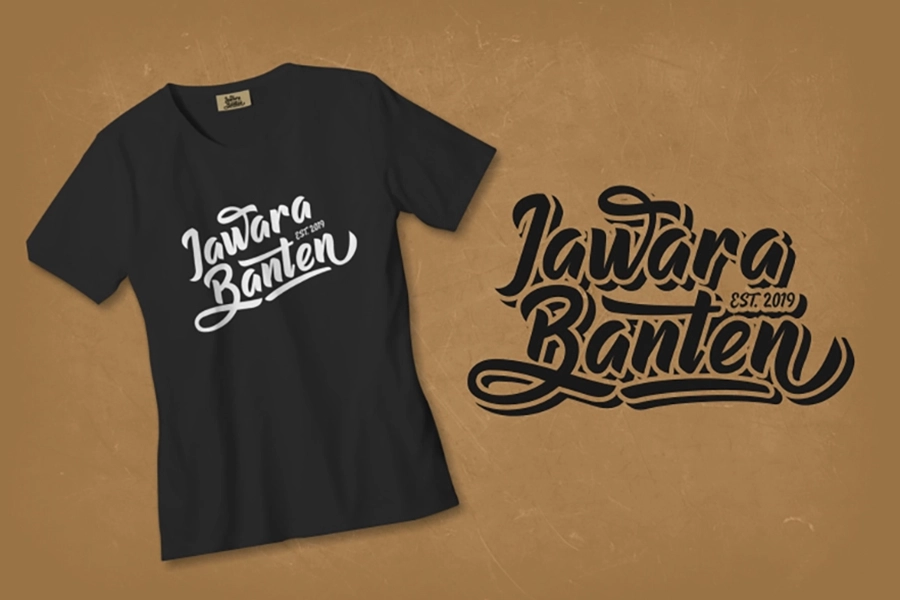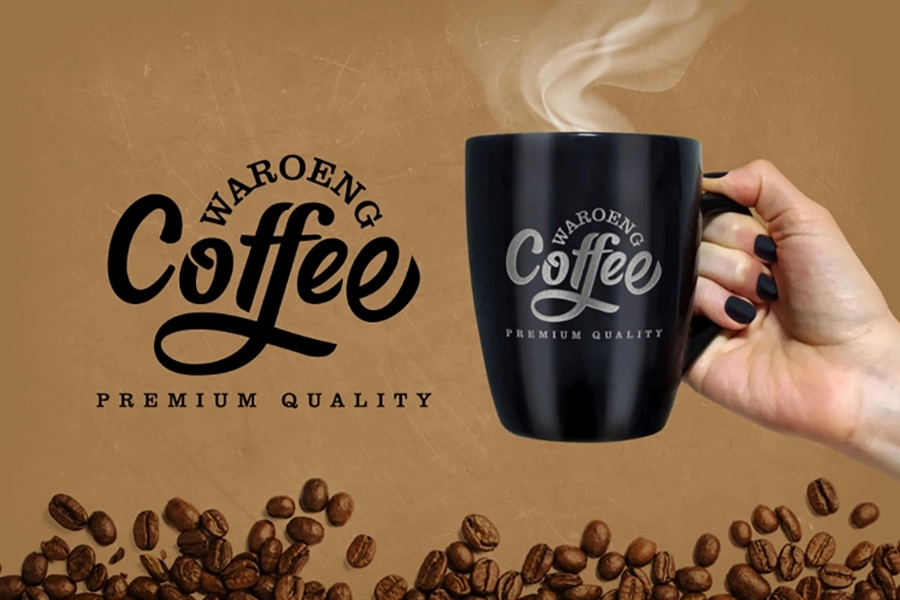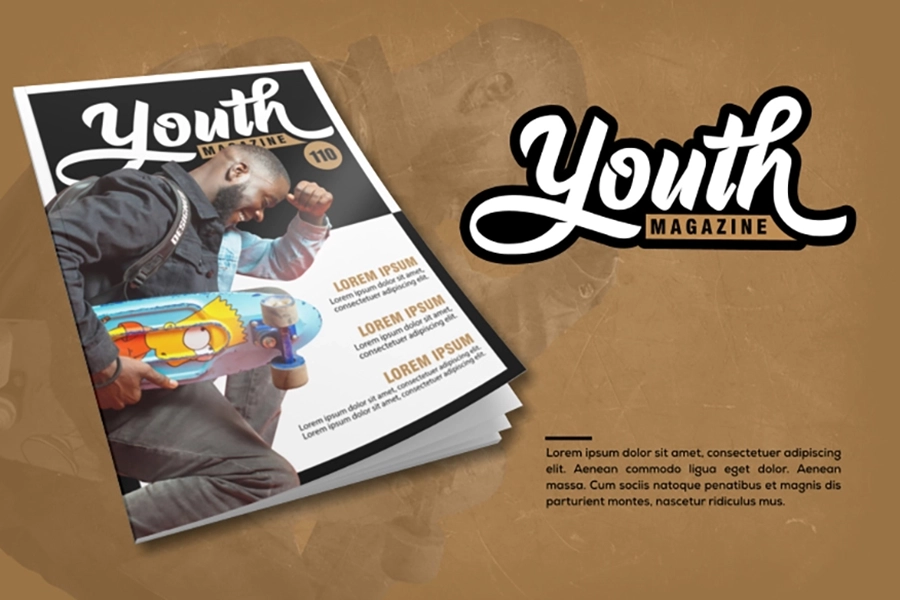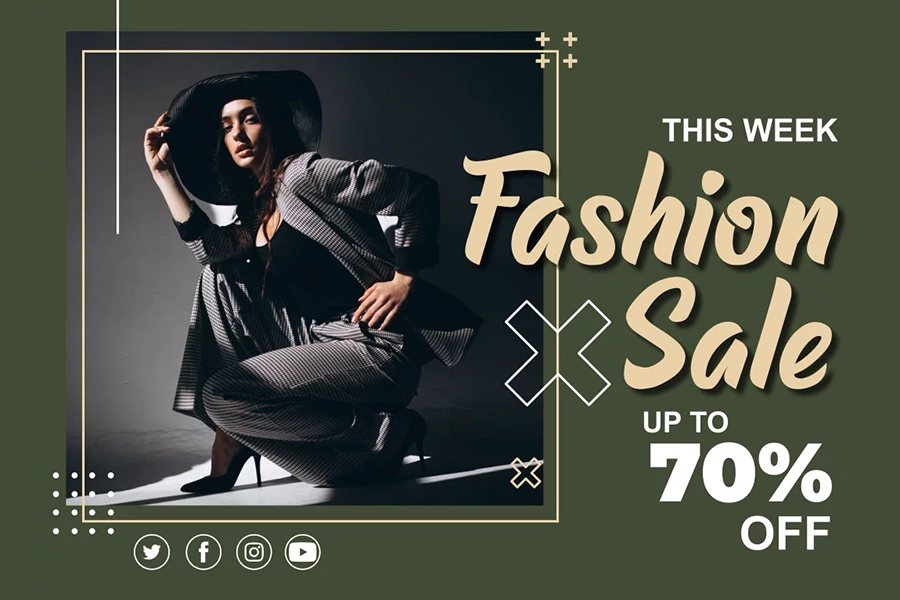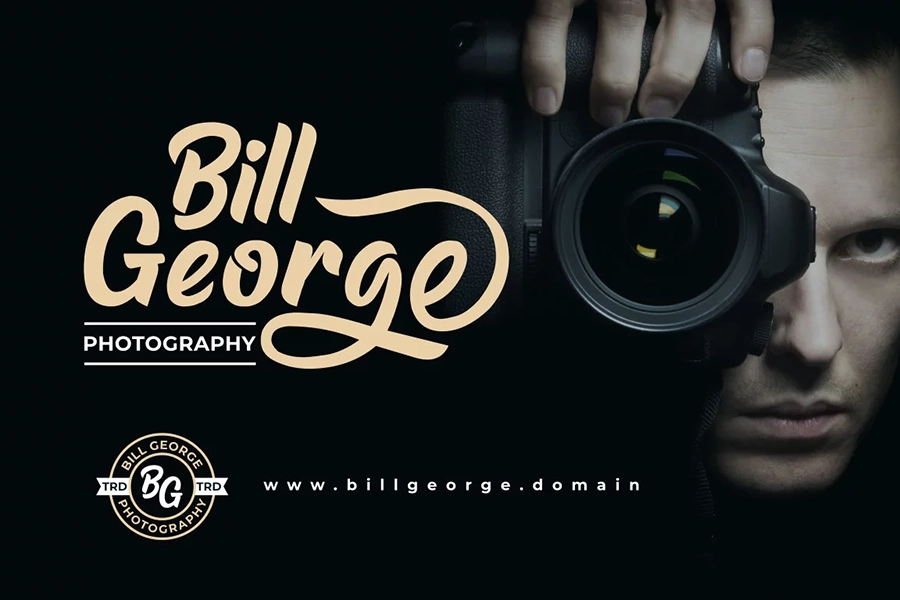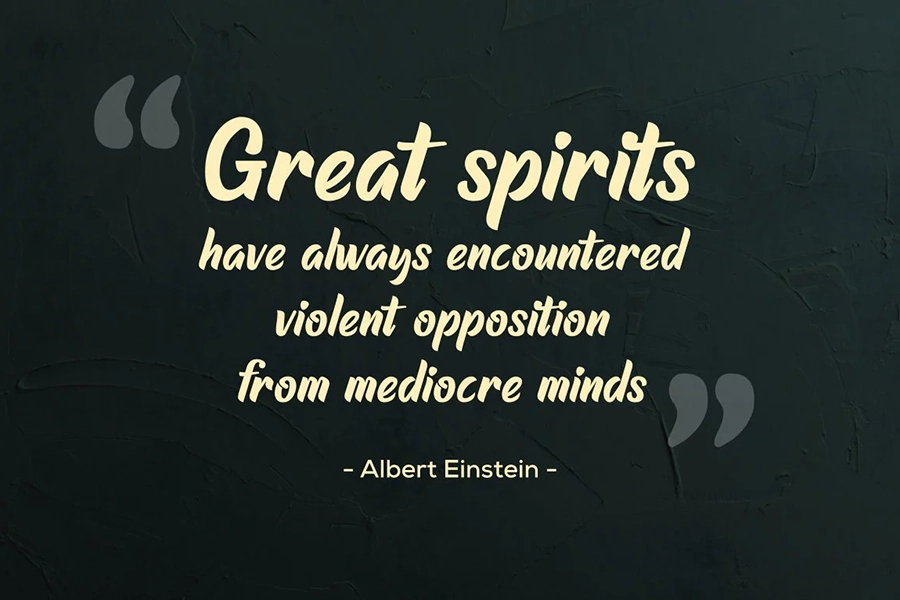
Raphtalia – Stylish Script Font
Raphtalia is a fun and bold font with a unique vintage appeal! Designed with a distinct retro feel and lovely elements,